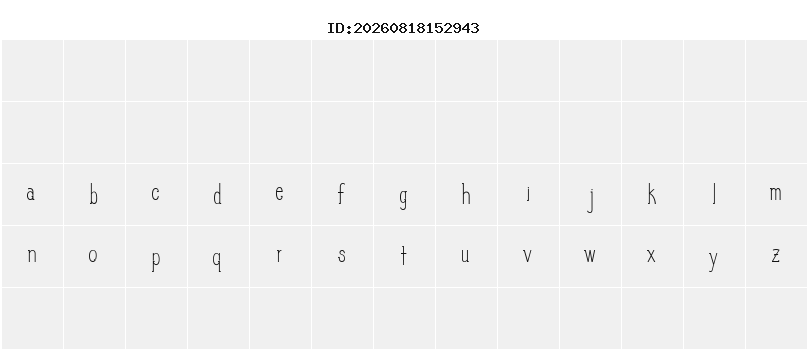
Slim Pickins Preview
• Font Name: Slim Pickins
• Designer: Carly Fisher
About Slim Pickins.ttf
Slim Pickins.ttf is a modern, elegant sans-serif font designed for ultimate readability and visual harmony. Perfect for branding, headlines, web design, and print materials.